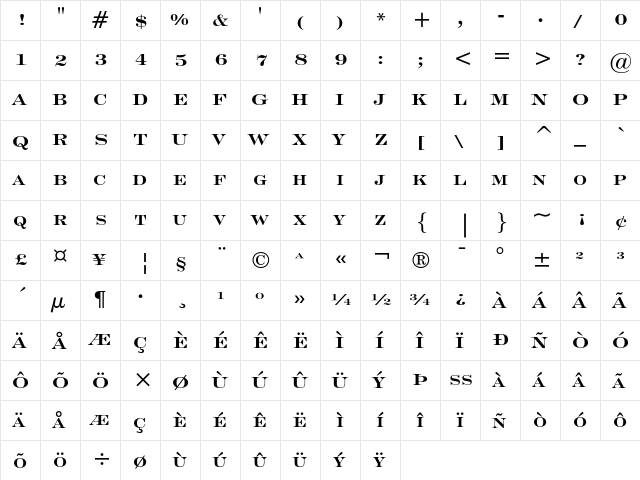
Engravers' Roman Bold
Design Context for Engravers' Roman Typeface
Engravers' Roman offers clean, dependable letterforms without strong stylistic allegiance, making it a practical choice for designers who need flexibility. The heavy weight commands attention and anchors typographic hierarchies.